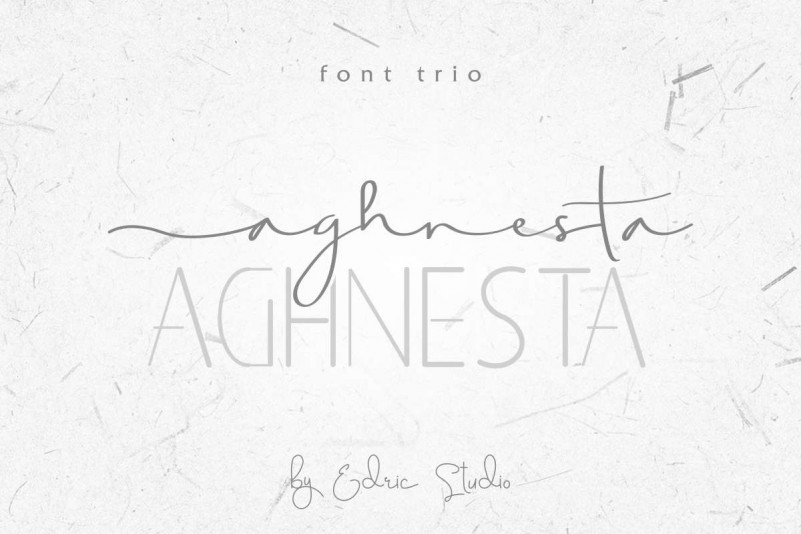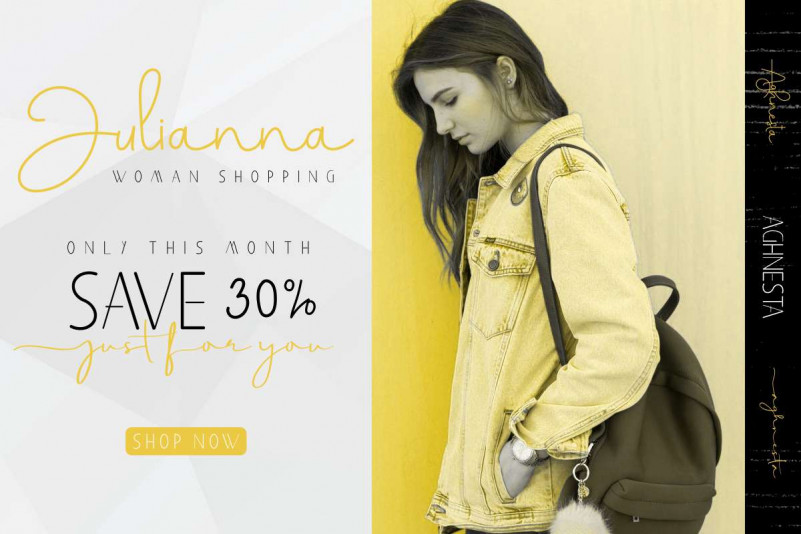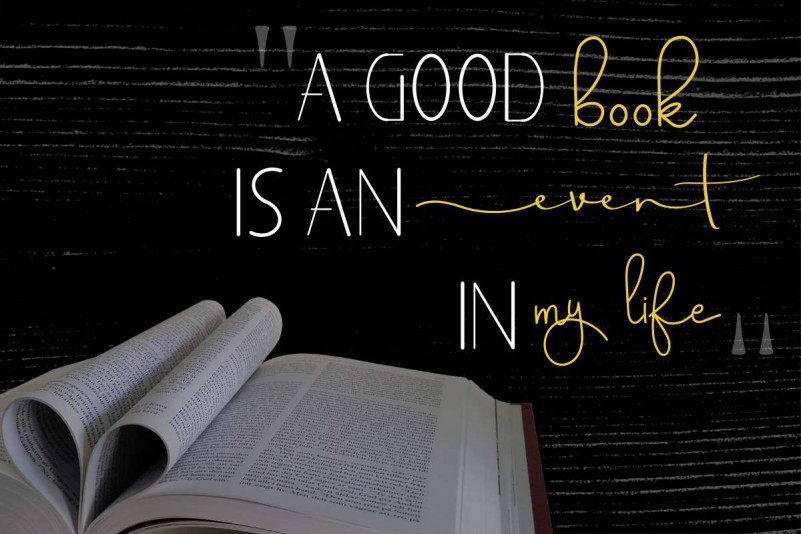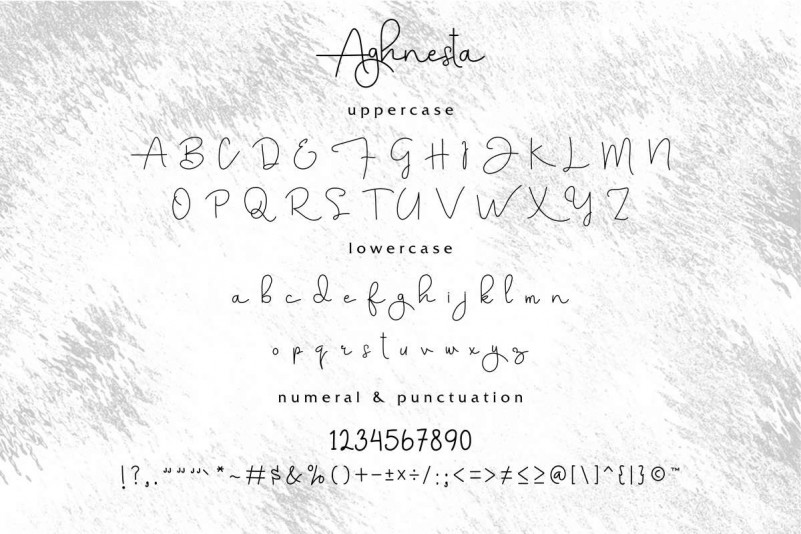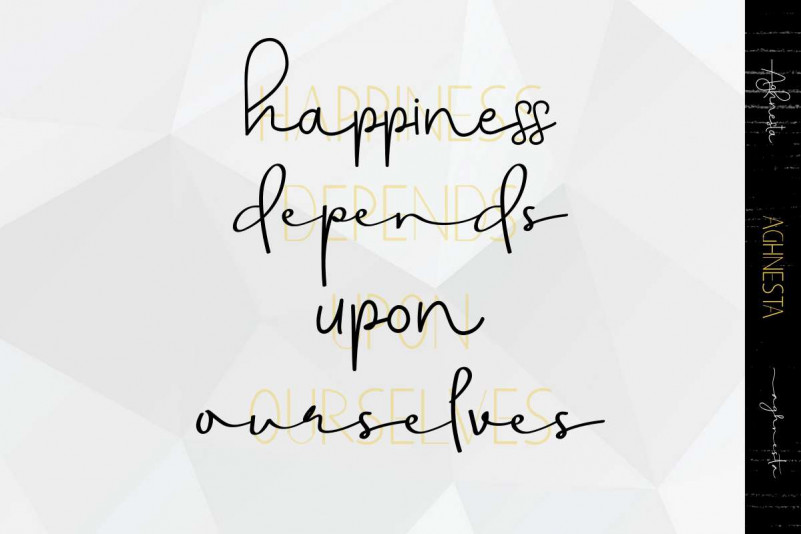
Aghnesta Font Trio
There are 3 complete different styles on this font : Sans, Signature and Handwriting Script. These styles will be great for any designs projects : branding, logotype, stationery, card, signage, flyer, brochure etc. Aghnesta Font Trio has a set of awesome glyphs so you can explore further more. Almost all industries are suitable with this font family : construction, real estate, music, law firm, lawyer, makeup artist, events, seminar, etc. With your creativity, there’s no limit using with this font.